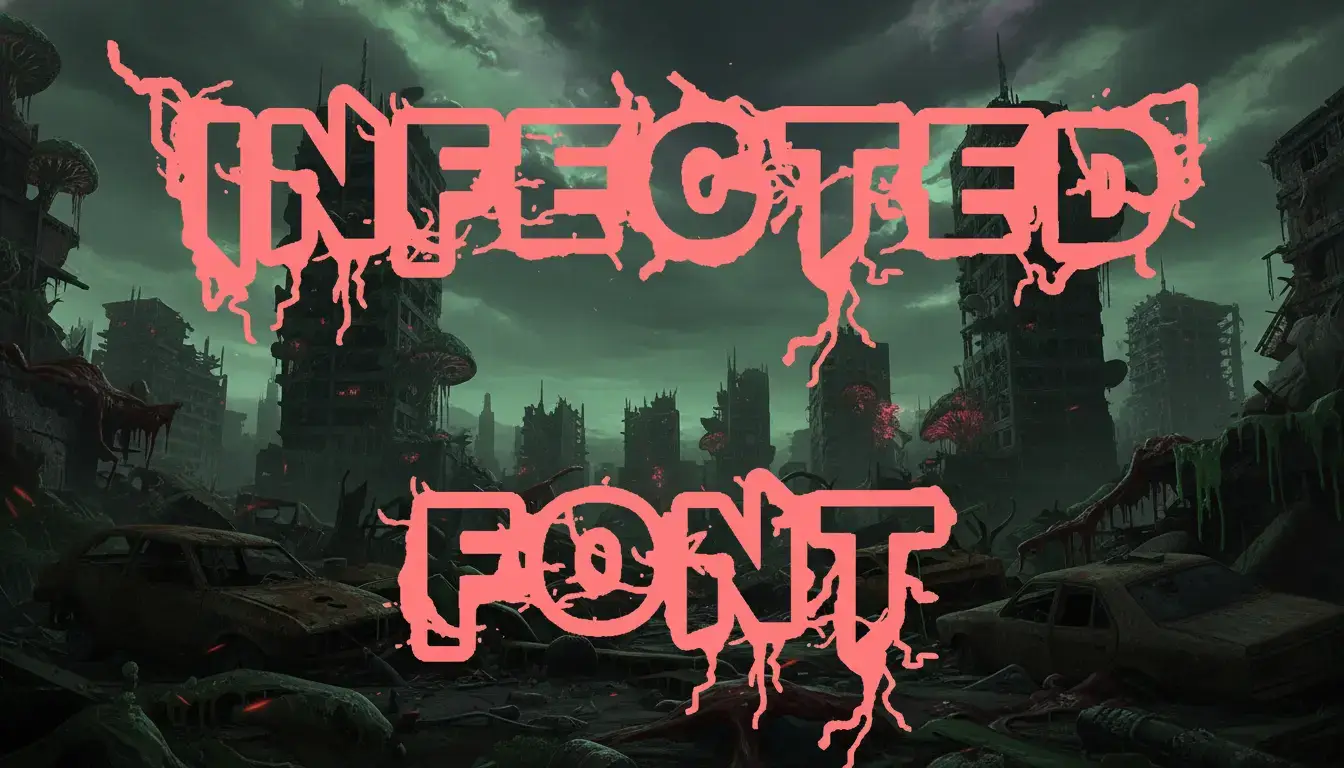
Infected Font
With complete upper and lowercase letters and all ten digits, Infected is ready for real wording, not just a single headline. Everyday marks like &, !, ? and @ are there too. Thanks to its accented letters, it also works for Spanish, French, German, Portuguese and Italian, not just English. On top of that, it includes Greek and Cyrillic characters.
Infected is a natural fit for posters, logos and eye-catching headlines. Use it for one standout word or headline and let simpler fonts handle the rest.
Yes. Infected includes the accented letters needed for Spanish, French, German, Portuguese and Italian, so it works for more than just English.